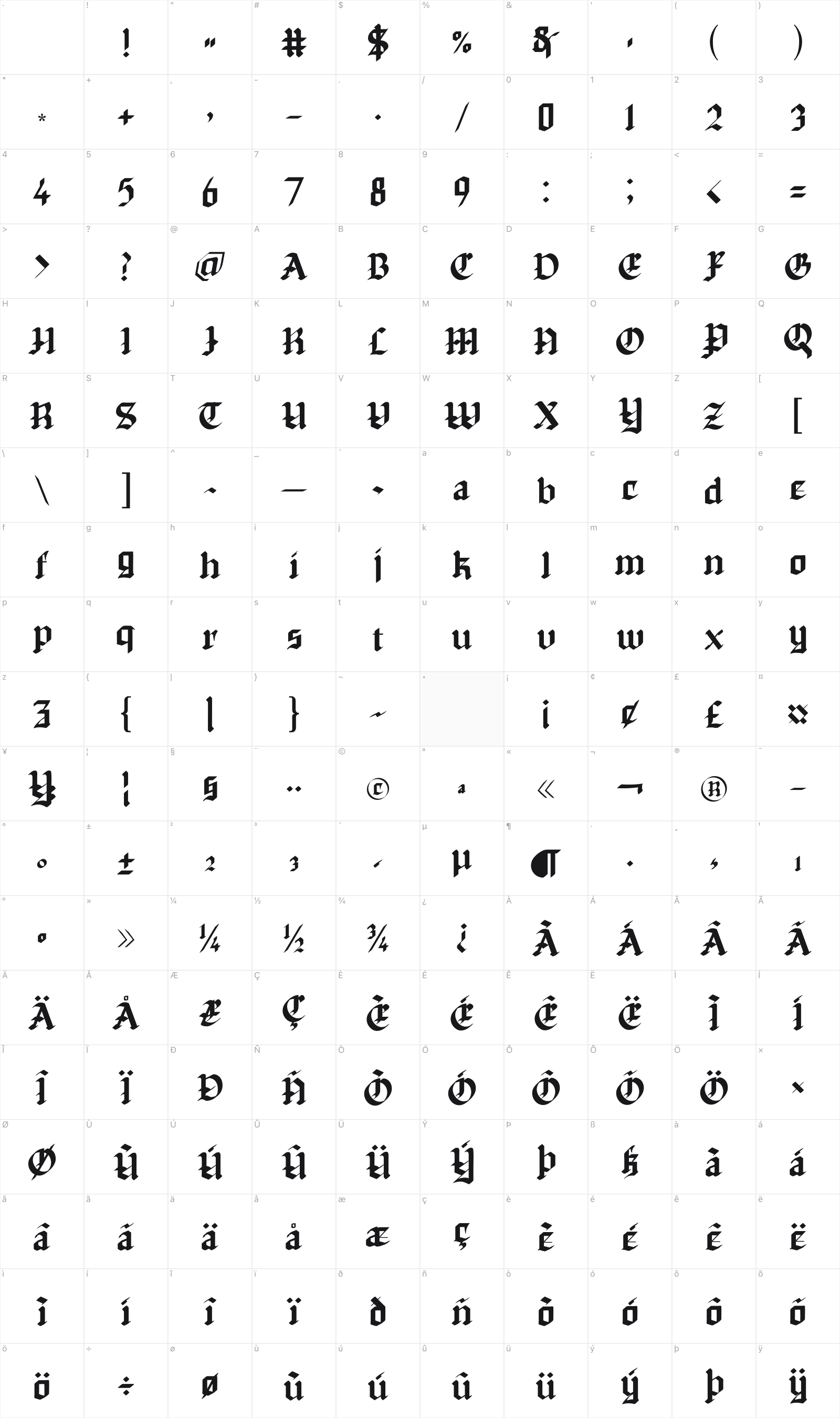
TS Chapinero
TS ChapineroLicense is a bold Gothic blackletter from Type Sailor Foundry, built on sharply angular strokes and the high stroke contrast of a broad-nib pen. The compressed proportions and pointed diamond terminals give it a strong, archaic weight that reads clearly at large sizes. It draws on deep historical roots while feeling grounded and contemporary enough for modern display use.